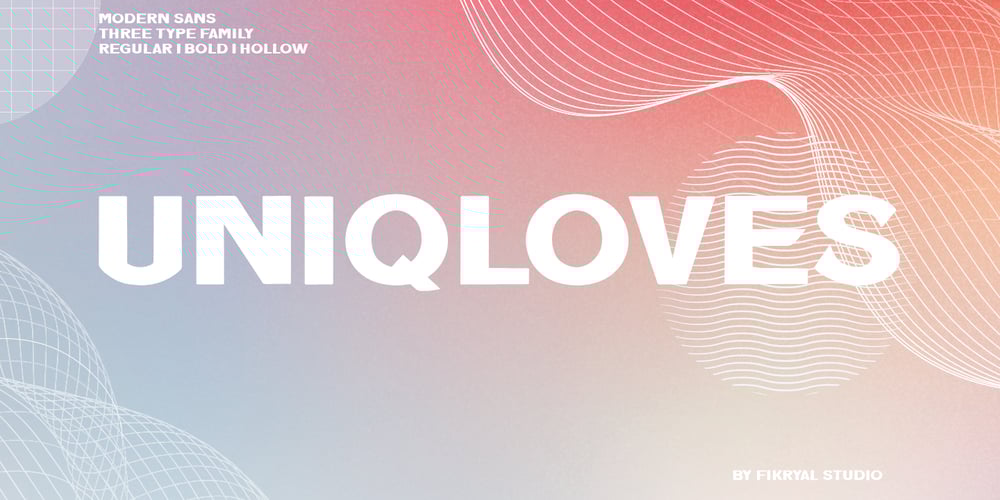
Uniqloves Font Family was designed by Muhammad Fikry and published by Fikryal. Uniqloves contains 3 styles and family package options. Uniqloves – Modern Sans, comes with three types of typefaces, Regular, Bold, and Hollow.This font is very suitable to be applied in various aspects of design, and your branding.It’s perfect for logos, branding, title, social media posts, advertisements, product packaging, product designs, label, photography, watermark, special event, magazine, web designs, etc.Features :Multilingual SupportIf you have any questions please don’t hesitate to contact mefollow my Instagram: @fkryallThank you